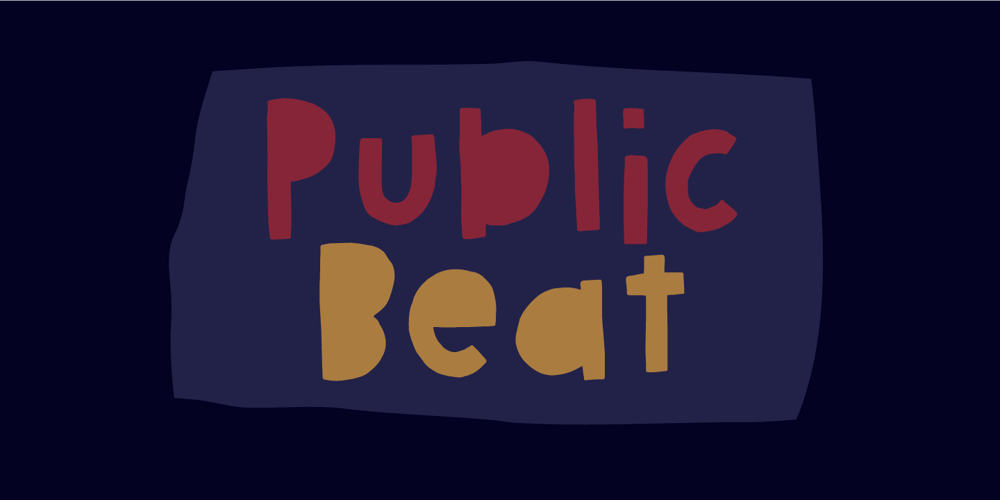
Public Beat Font Family was designed by Jakob Fischer and published by PizzaDude.dk. Public Beat contains 2 styles and family package options. Public Beat is full of fun and party! Look how the letters jumps and bounces while you type your text – well, that’s the Contextual Alternates that are having a party! Each lower-case letter has 4 different versions, that automatically cycles when you type. A great trick to make your text look scrambled and realistic